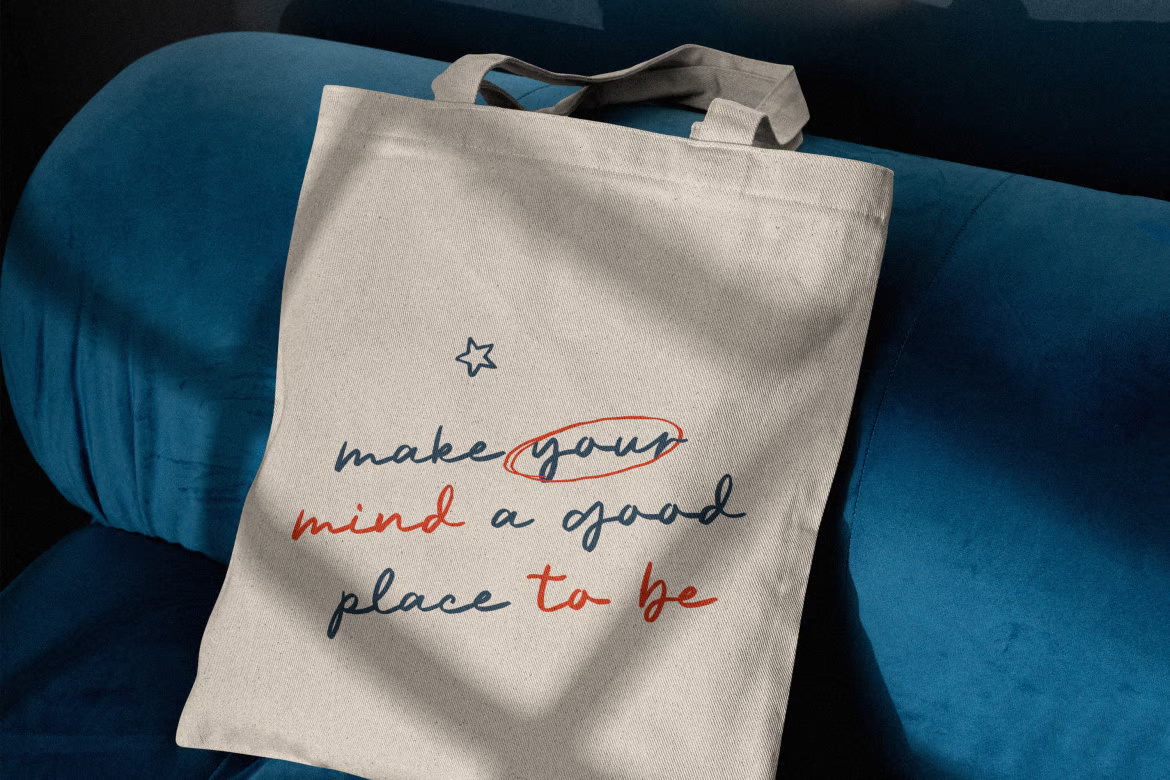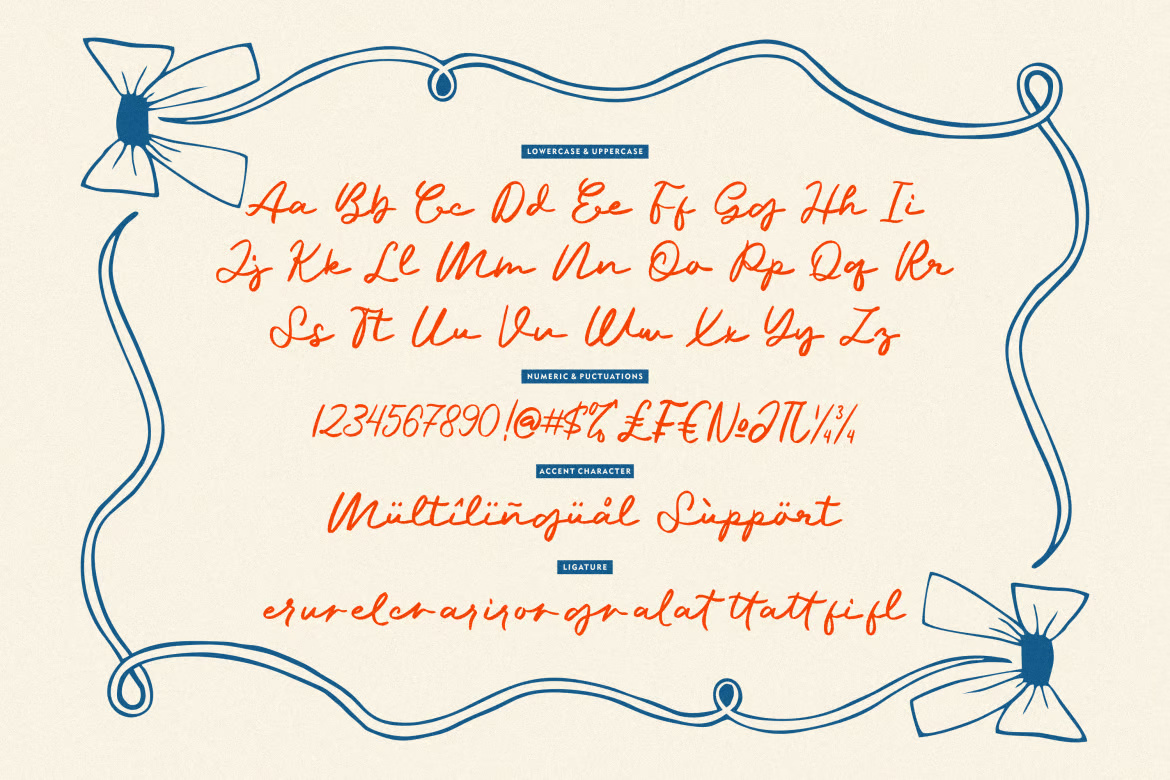
Introducing Palmera Dirham – a captivating handwritten script font meticulously crafted by Anxietype Foundry. Infused with whimsical charm, this font shines in greeting cards, heartfelt quotes, elegant menu designs, and enchanting wedding invitations. It’s the perfect choice for artists and designers seeking to add a touch of magic to lyric designs, magazine layouts, or social media posts. Let your creativity flow effortlessly with the unique allure of Palmera Dirham.
AT Palmera Dirham Font